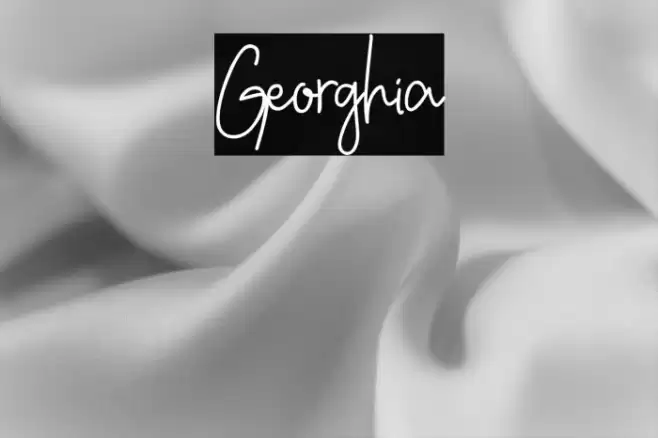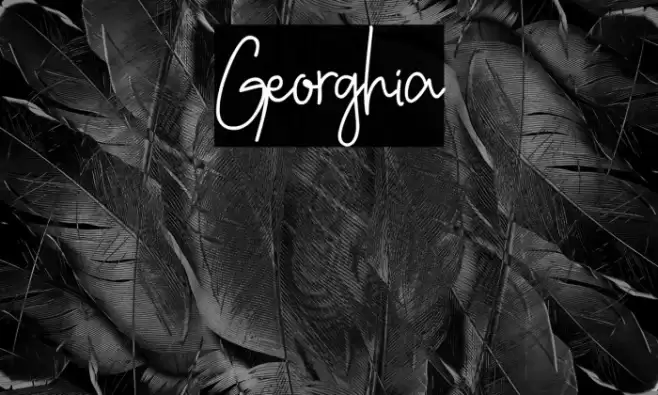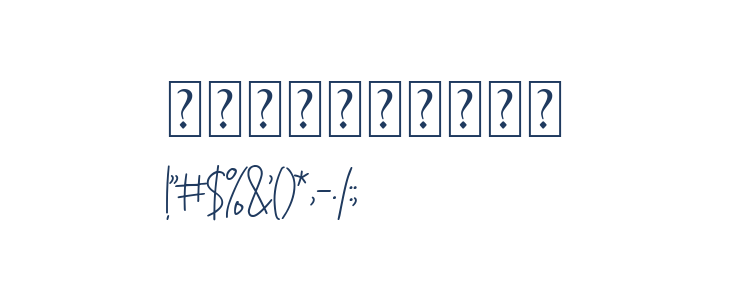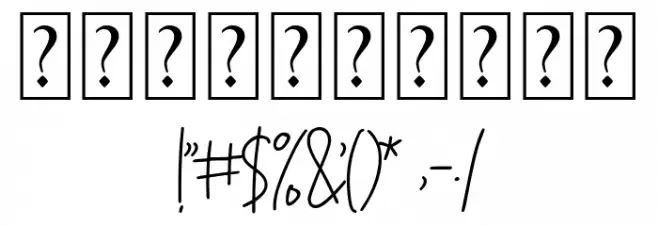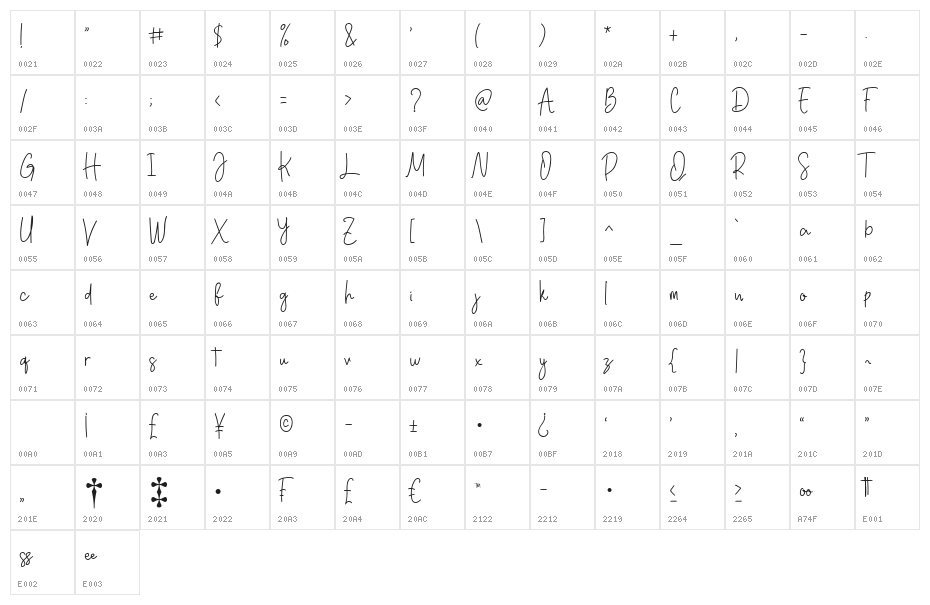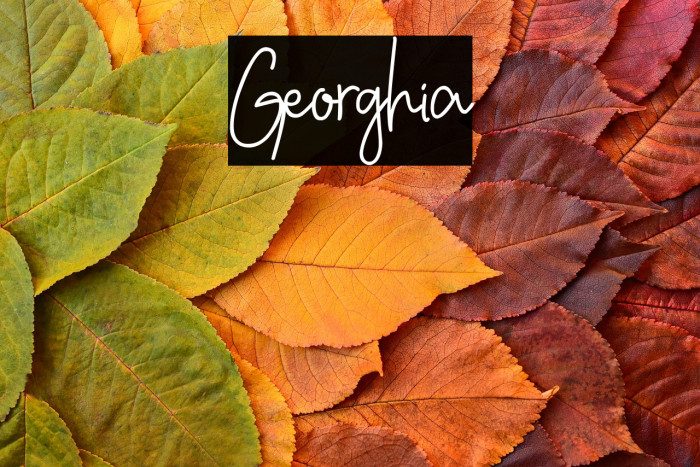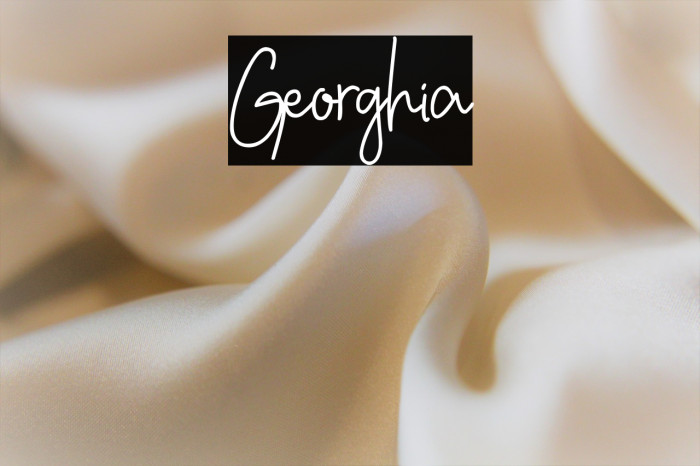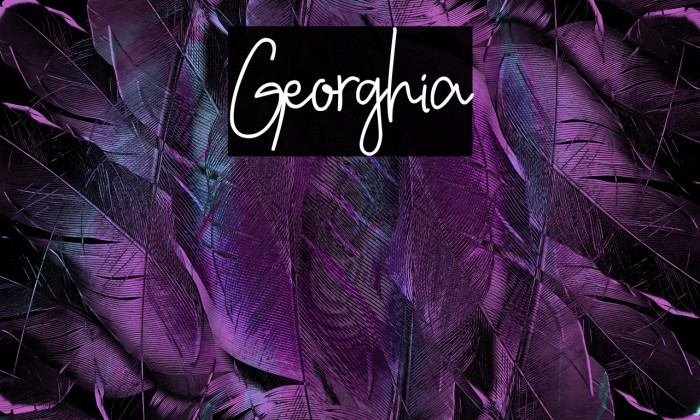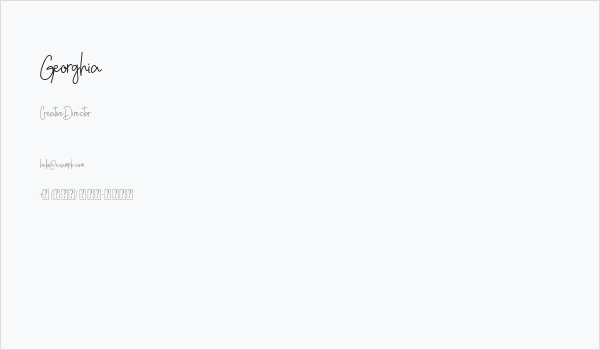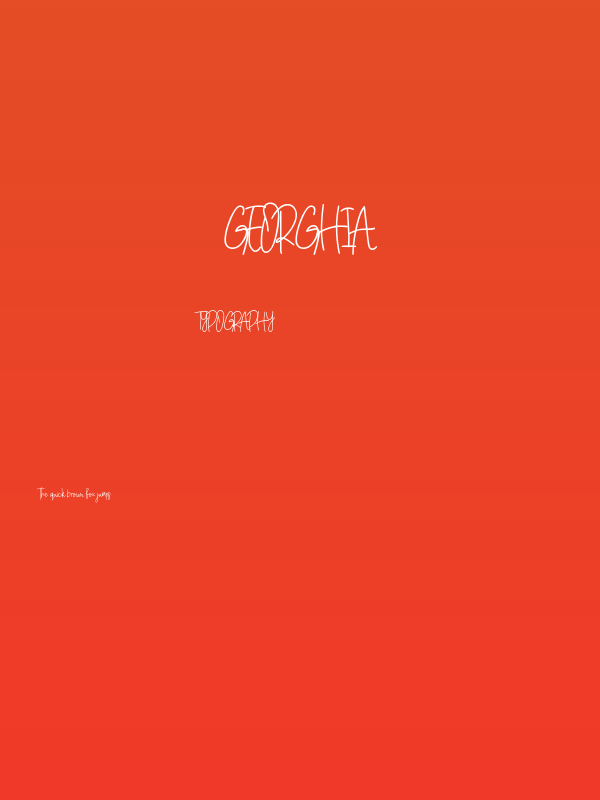
Georghia Font
Georghia Description
This font features a playful and energetic handwritten style, characterized by its flowing, cursive letters and dynamic strokes. The uppercase letters are tall and slightly narrow, with a whimsical flair that adds personality. The lowercase letters maintain a consistent flow, enhancing readability while retaining a casual, artistic vibe. The numerals and special characters are crafted with the same lively spirit, making them suitable for creative projects. The overall design is cohesive, with a touch of elegance that makes it versatile for various uses.
A playful, handwritten font with dynamic strokes and a whimsical flair from Uncategorized fonts.
- Font: Georghia
- Proposed Projects: Ideal for greeting cards, invitations, personal branding, and creative social media graphics.
- Use Case: Logos, Headlines, Creative projects